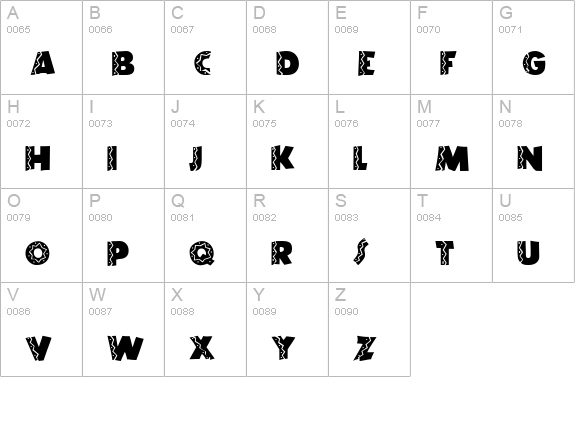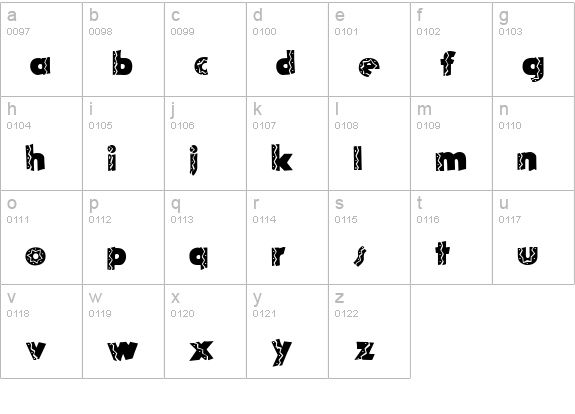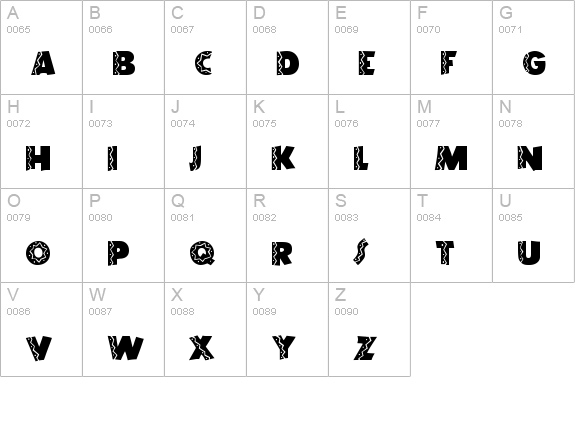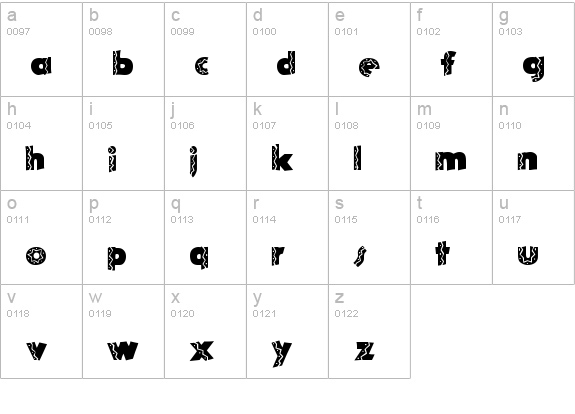
El Rio Lobo Font Details
El Rio Lobo is a stunning display font that embodies the spirit of the wild west with its rugged and adventurous aesthetic. This unique typeface features bold, angular letterforms that exude strength and character, making it perfect for adding a touch of frontier flair to your designs. What sets El Rio Lobo apart is not just its distinctive look, but also the fact that it is completely free to download. That's right, you can get your hands on this fantastic font without spending a dime. Simply visit FontsMarket.com and start using El Rio Lobo in your projects today. Whether you're working on a poster for a western-themed event, designing a logo for a rugged outdoor brand, or creating a vintage-inspired website, El Rio Lobo is sure to make a bold statement. So why wait? Give your designs a touch of frontier charm with this incredible font, available for free download now.